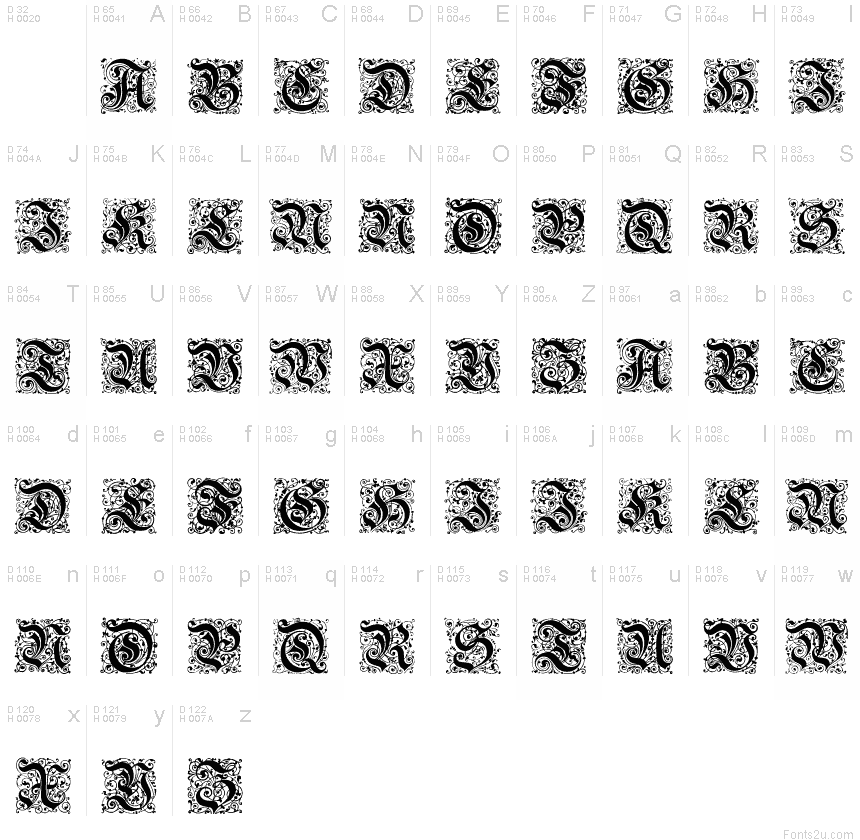
Kanzlei-Initialen
Kanzlei-Initialen font by Dieter Steffmann is a free Gothic medieval decorative initial typeface. Each letter sits inside an ornate square frame, woven with inky vines, curls, and tiny leaf-like flourishes that feel pulled from an illuminated manuscript. The dense black shapes and swirling ornamentation create a rich, almost tactile texture, so a single character instantly becomes a miniature illustration rather than just a letter.
Using Kanzlei-Initialen, you can turn chapter openings, book titles, certificates, fantasy game materials, wedding stationery, wine labels, or historical event posters into something deeply atmospheric. This free font shines when used as large initials or monograms, supported by a plain serif or sans-serif for longer text. Keep the size generous and the surrounding layout clean, and Kanzlei-Initialen becomes the dramatic focal point of your design.